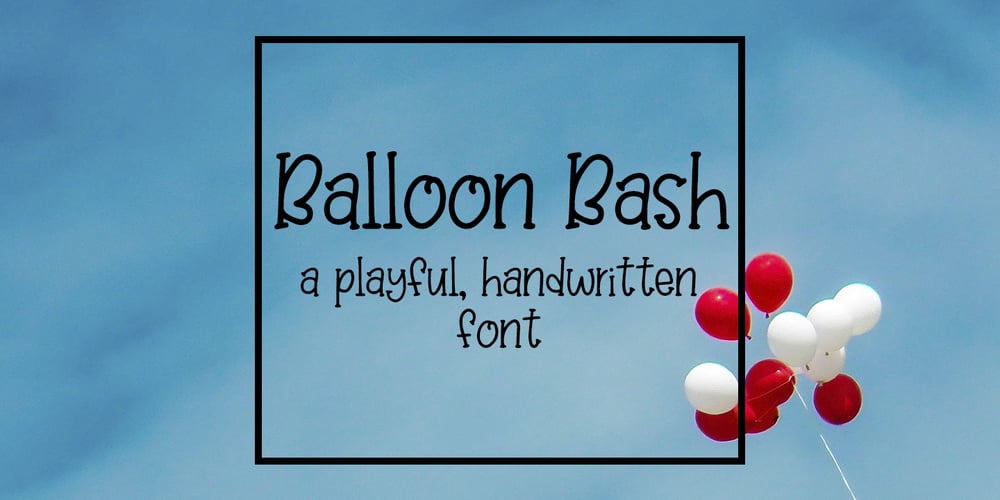
Balloon Bash
Balloon Bash font
Balloon Bash Font Family was designed by Tate Chaffin and published by SavoringSurprises. Balloon Bash contains 1 styles and family package options. Balloon Bash is a hand lettered serif font. It’s very playful and could be used for a variety of designs, such as a wooden sign or a kid’s t-shirt! – Contains over 200 accented characters for language support. Some of the languages supported are: English, Spanish, Portuguese, German, Italian, French, Polish, Catalan, Irish, Norwegian, Croatian, Gaelic, and more! If you would like to know if a certain language is supported, please contact me with the language and/or any special characters you wanted to know about.